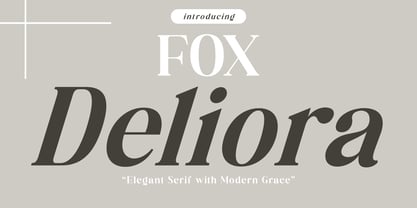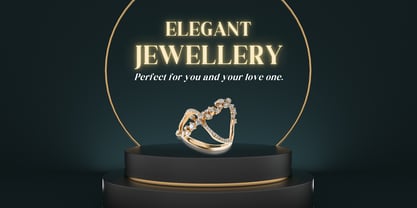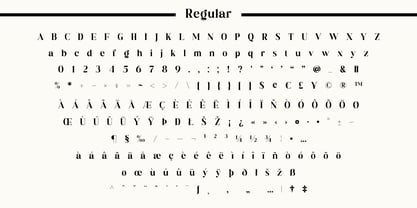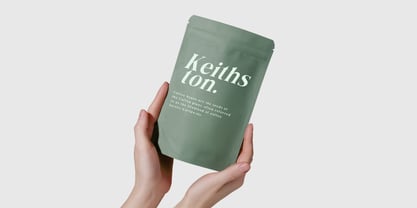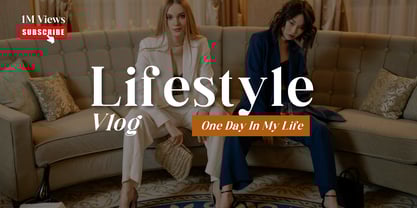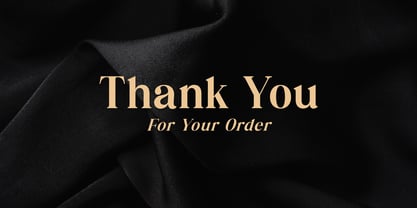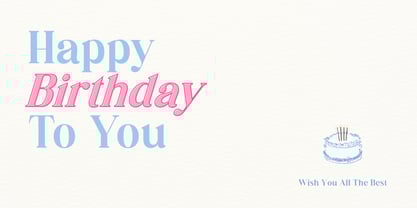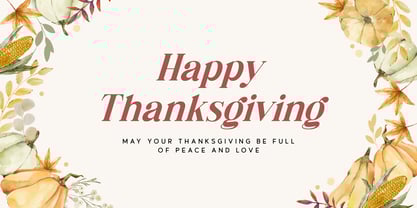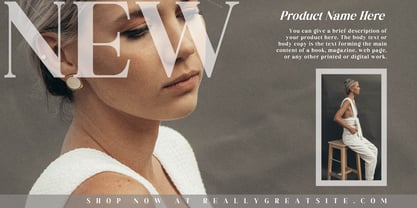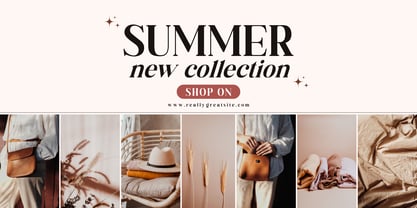
Fox Deliora
by Fox7
The Fox Deliora Font Family was designed by Rattana Rattanawan and published by Fox7. Fox Deliora contains 2 styles and family package options.
Fox Deliora is a refined serif typeface that beautifully balances timeless elegance with a touch of modern sophistication. Featuring high contrast strokes, smooth curves, and graceful letterforms, this font brings a sense of luxury and confidence to every design it touches. Perfect for branding, editorial design, packaging, invitations, or sophisticated logo work — Fox Deliora elevates your projects with its poised and polished charm. ꕥ Ideal for:ꕥ Luxury branding, fashion magazines, product packaging, coffee labels, and elegant stationery. Bring modern elegance and effortless sophistication to your creative work with ꕥ Fox Deliora ꕥ — where classic beauty meets contemporary style.